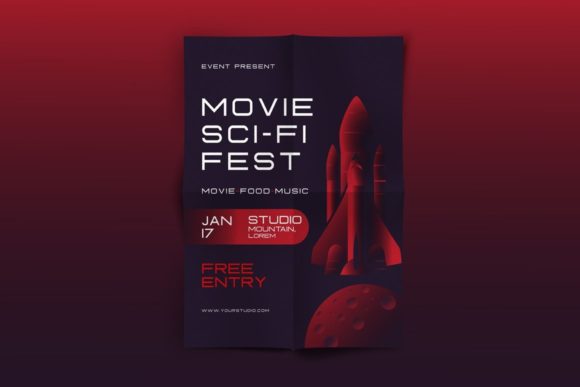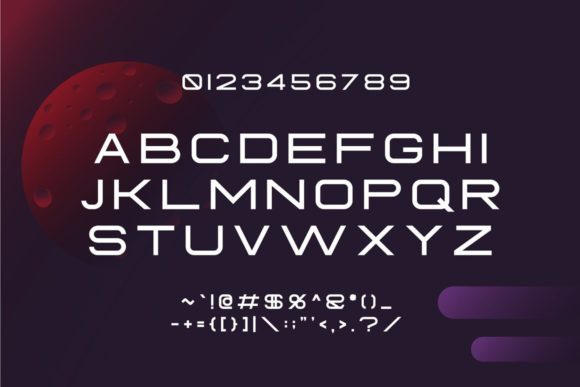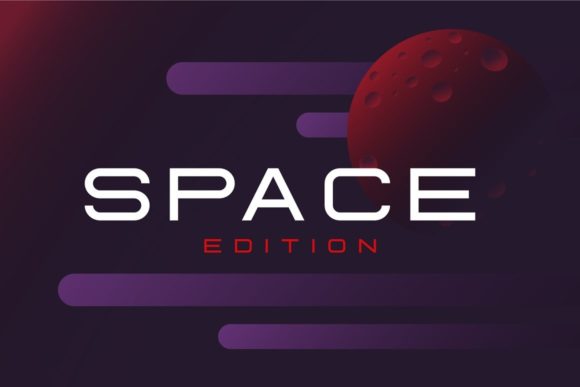
Fearce Font: The Ultimate Modern Display Font for Designers and Crafters
In the world of typography, fonts play a crucial role in conveying the tone and personality of a brand or design. With the vast array of fonts available, it can be challenging to find the perfect one that stands out from the crowd. However, if you’re looking for a cool, modern, and unique display font, look no further than Fearce Font. In this article, we’ll dive into the world of Fearce Font, exploring its features, benefits, and uses, making it a must-have for designers and crafters.
What is Fearce Font?
Fearce Font is a modern display font designed to add a unique touch to your designs. Its sleek and contemporary style makes it perfect for a wide range of applications, from web designs and business cards to posters, flyers, and more. With its bold and eye-catching appearance, Fearce Font is sure to grab attention and leave a lasting impression.
Key Features of Fearce Font
So, what makes Fearce Font so special? Here are some of its key features:
• Unique and Modern Design: Fearce Font boasts a distinctive and modern design that sets it apart from other fonts.
• Cool and Edgy: Its bold and edgy style makes it perfect for designs that require a bit of attitude.
• Highly Versatile: Fearce Font can be used for a wide range of applications, from digital designs to print materials.
• Easily Readable: Despite its bold style, Fearce Font is surprisingly easy to read, making it perfect for headlines and titles.
Benefits of Using Fearce Font
So, why should you choose Fearce Font for your next design project? Here are some benefits:
• Adds a Unique Touch: Fearce Font adds a unique and creative touch to your designs, setting them apart from the competition.
• Enhances Brand Identity: With its bold and modern style, Fearce Font can help enhance your brand’s identity and make it more memorable.
• Increases Engagement: The eye-catching appearance of Fearce Font is sure to grab attention and increase engagement with your audience.
Use Cases for Fearce Font
Fearce Font is an incredibly versatile font that can be used for a wide range of applications. Here are some use cases:
• Web Design: Use Fearce Font to create stunning website headers, titles, and other design elements.
• Business Cards: Add a unique touch to your business cards with Fearce Font.
• Posters and Flyers: Use Fearce Font to create eye-catching posters and flyers that grab attention.
• Social Media Graphics: Fearce Font is perfect for creating social media graphics that stand out from the crowd.
Tips for Using Fearce Font
Here are some tips for getting the most out of Fearce Font:
• Use it Sparingly: Fearce Font is bold and eye-catching, so use it sparingly to avoid overwhelming your design.
• Pair it with Other Fonts: Experiment with pairing Fearce Font with other fonts to create a unique and visually appealing combination.
• Adjust the Size and Color: Play around with different sizes and colors to find the perfect combination for your design.
In conclusion, Fearce Font is a cool, modern, and unique display font that’s perfect for designers and crafters looking to add a touch of personality to their designs. With its bold and eye-catching appearance, Fearce Font is sure to grab attention and leave a lasting impression. Whether you’re designing a website, business card, or poster, Fearce Font is a versatile and easy-to-use font that’s sure to become a favorite in your design arsenal.